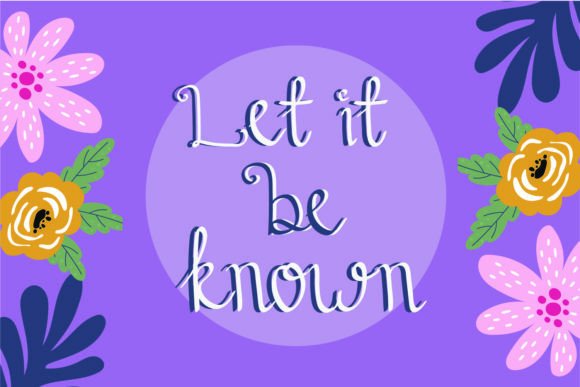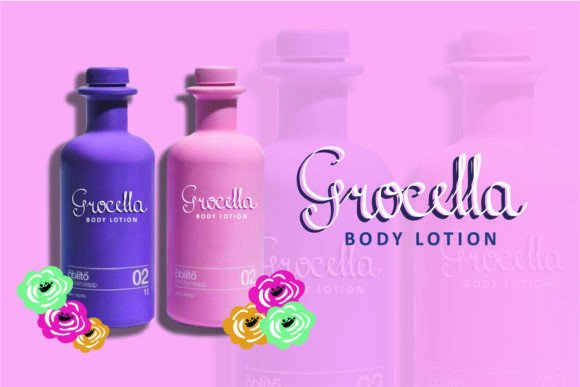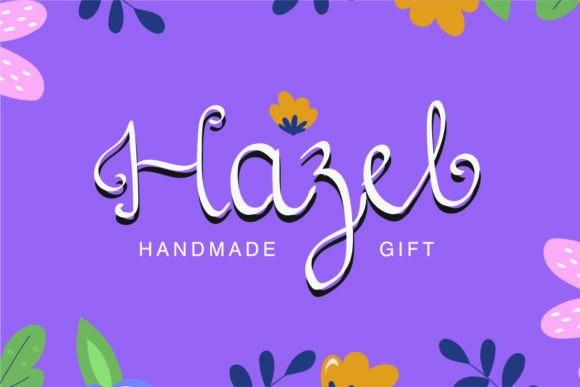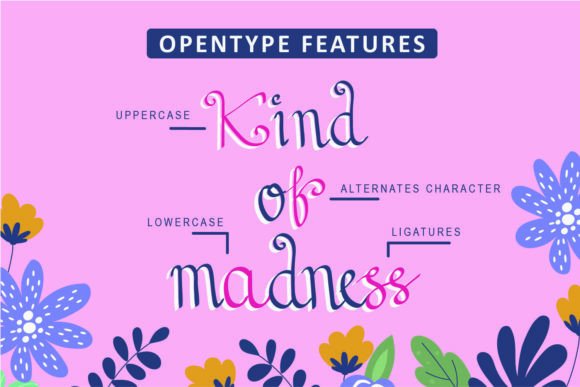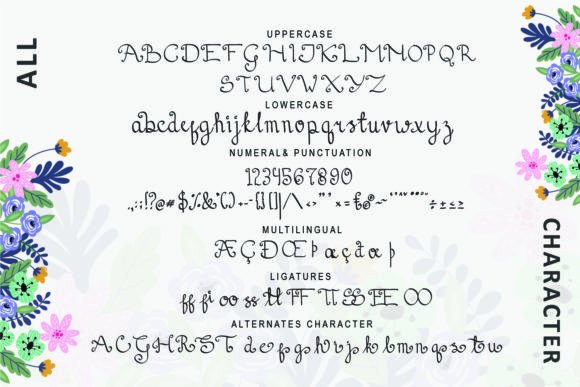
Introduction to Saffana Font
Saffana is a cute and girly handwritten font.
Its adorable and friendly look makes it the perfect font for all your projects that need a dainty and joyful touch This font is PUA encoded which means you can access all of the amazing glyphs and ligatures with ease.
Key Features of Saffana Font